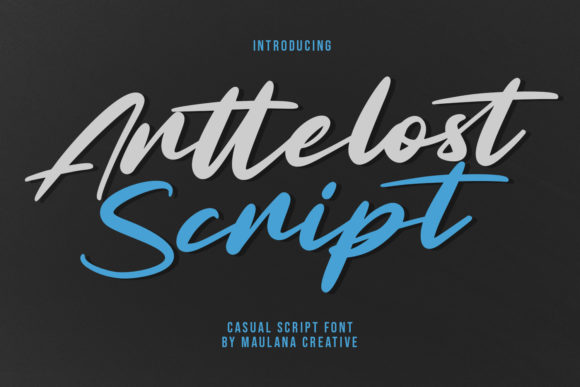
The Ultimate Guide to Arttelost Script Font: Elevate Your Designs with this Trendy Handwritten Font
Arttelost Script Font: The Perfect Addition to Your Font Library
Arttelost Script Font is a stunning handwritten font that can elevate any design project. Its unique blend of elegance and playfulness makes it perfect for a wide range of applications, from branding and advertising to crafting and DIY projects. Whether you’re a designer, crafter, or creative hobbyist, this font is sure to become a favorite in your font library.
- Unique and trendy design that’s sure to turn heads ✅
- Perfect for a wide range of design projects, from formal to informal 🎉
- Easy to read and understand, even at small sizes 📚
- Supports OpenType features, glyphs, and stylistic alternates for added versatility 🤩
- May not be suitable for very formal or traditional designs ⚠️
- Some users may find the font a bit too playful or casual 😊
The Story Behind Arttelost Script Font
Arttelost Script Font was designed with the goal of creating a unique and trendy handwritten font that could be used for a wide range of design projects. The designer wanted to create a font that was both elegant and playful, with a touch of personality. And that’s exactly what they achieved with Arttelost Script Font! 🎨
Q: What is Arttelost Script Font?
A: Arttelost Script Font is a beautiful handwritten font perfect for a wide range of design projects.